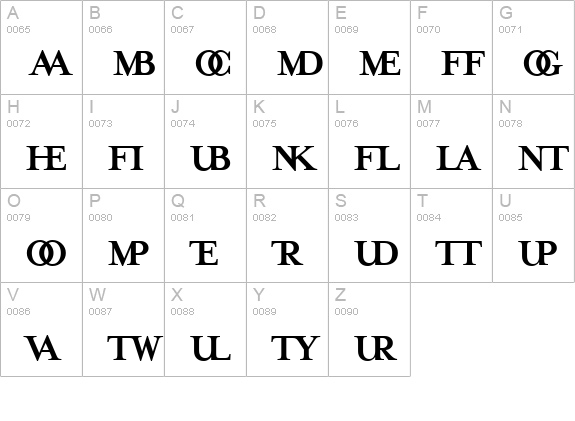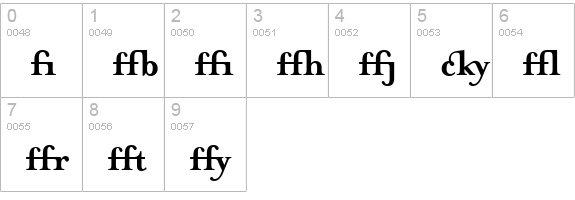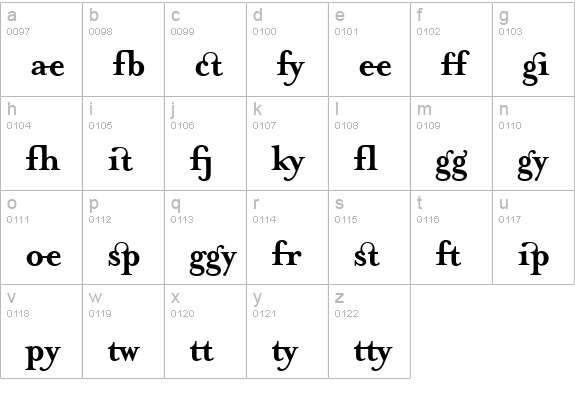
MrsEavesJustLig Bold is a strong, high-contrast variant in the MrsEavesJustLig typeface family \xE2\x80\x94 well suited to headlines, attention-grabbing titles, and strong calls-to-action.
MrsEavesJustLig Bold is a visually striking and elegant font that exudes sophistication and charm. Its bold weight commands attention while still maintaining a sense of refinement and grace. The unique ligatures add a touch of personality and style to any design, making it perfect for both headlines and body text. This beautiful font is not only versatile and easy to read but also comes with a touch of whimsy that sets it apart from other serif fonts. Whether you're designing a wedding invitation, a magazine layout, or a logo, MrsEavesJustLig Bold is sure to make a lasting impression. Best of all, MrsEavesJustLig Bold is freely available to download at FontsMarket.com, making it accessible to designers and creatives looking to elevate their projects without breaking the bank. Don't miss out on the opportunity to add this stunning font to your collection today!